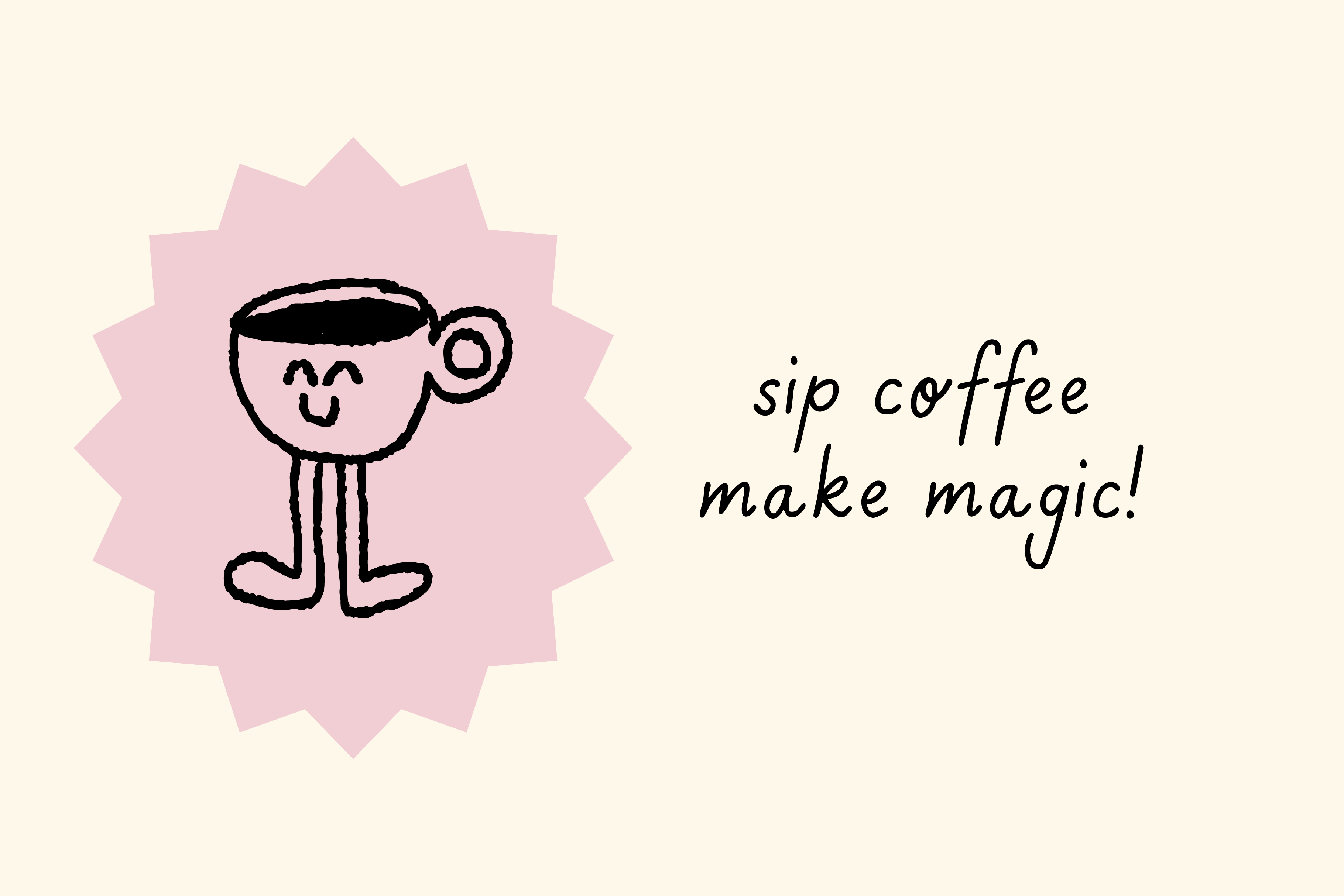
Cute Pen Handwritten font
Meet Cute Pen – a warm, handwritten script font made for dreamers, makers, and small business owners who pour their heart into everything they create. With its soft, looping letterforms and effortlessly charming character, Cute Pen feels like a note scribbled between best friends: personal, playful, and full of warmth. Perfect for branding, packaging, wedding stationery, social media graphics, planners, and product labels, this font brings an authentic handmade touch to any project.
Whether you're designing a logo for your Etsy shop or adding a cozy caption to your latest Pinterest post, Cute Pen helps your work feel as genuine and lovingly crafted as the products behind it.